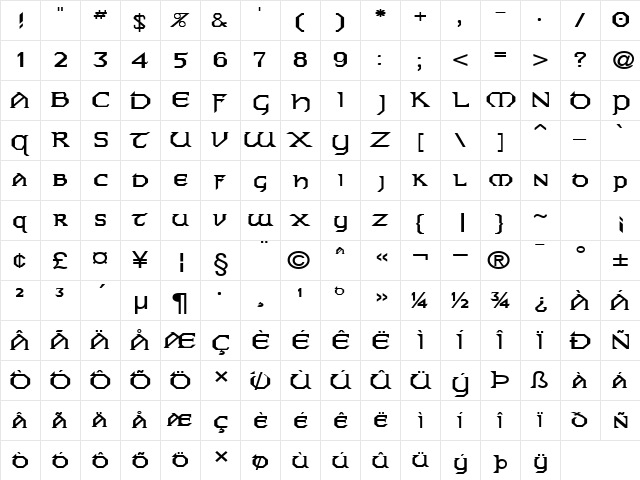
Norman-Extended Normal
Design Context for Norman-Extended Typeface
Norman-Extended is a composed and adaptable typeface that performs quietly and consistently across a wide range of design contexts.